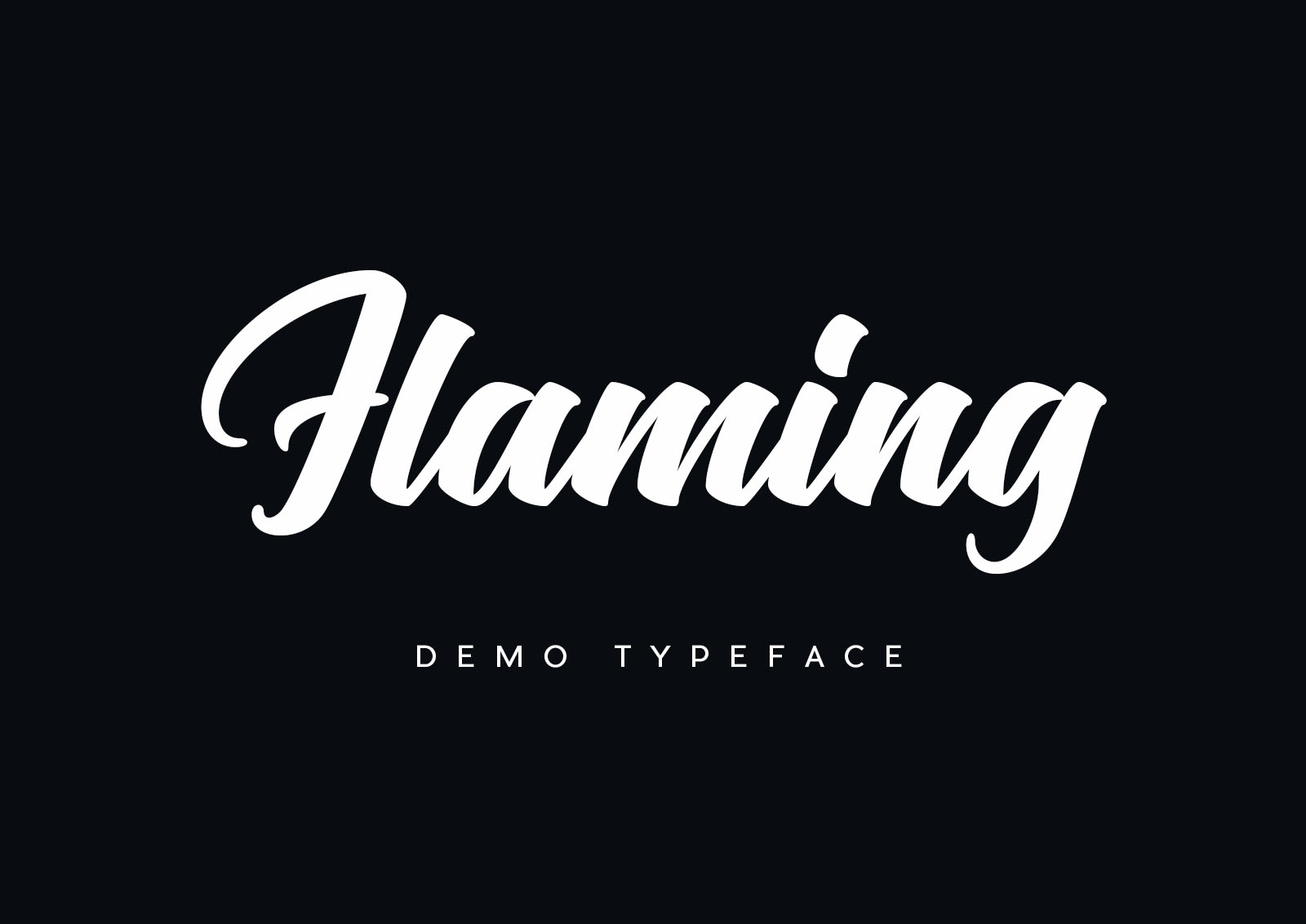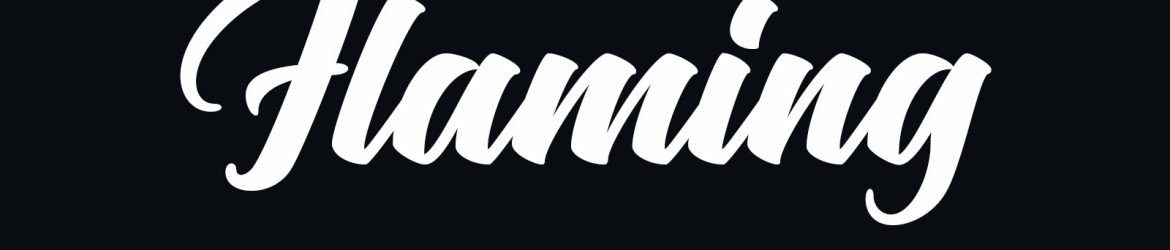
Flaming Script Font – Download Grátis
Flaming Script is an audacious and stylish font that adds a unique feel and look to a text. It is very legible which makes it suitable for usage in magazines, t-shirt designs, flyers, logos, and headlines amongst others.